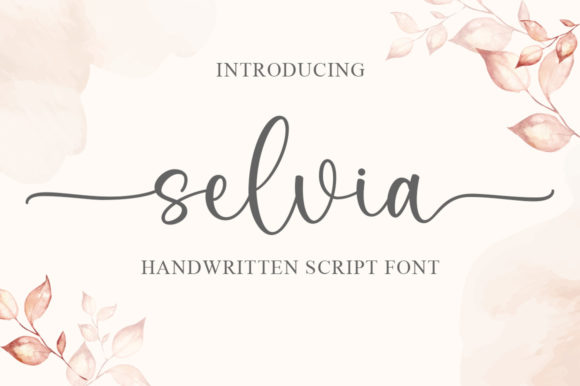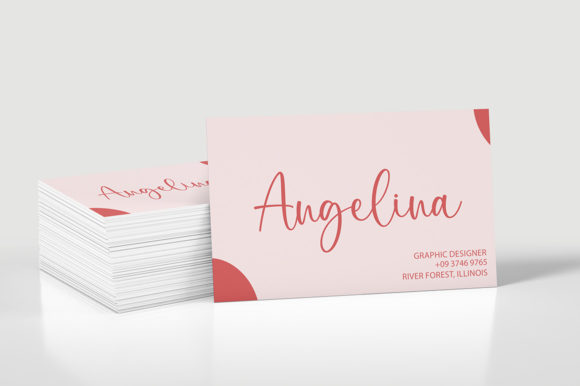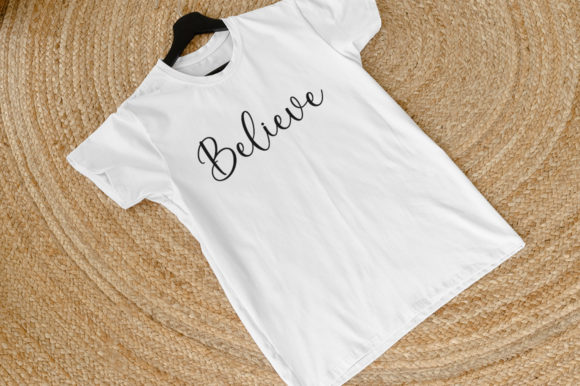
About Selvia Font
Selvia is a delicate, elegant, and flowing handwritten font. It has beautiful and well-balanced characters and as a result, it matches a wide pool of designs. Selvia is PUA encoded, which means you can access all of the glyphs and swashes with ease!